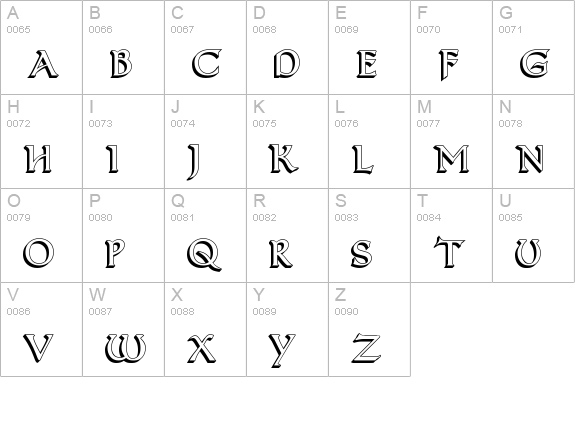
Dumbledor 1 3D font is a captivating and whimsical typeface that brings a touch of magic to any design project. With its intricate 3D detailing and elegant curves, this font exudes a sense of enchantment and mystery. Perfect for adding a touch of whimsy to invitations, posters, or branding materials, Dumbledor 1 3D font is sure to captivate your audience. The best part? Dumbledor 1 3D font is available for free download at FontsMarket.com. Simply visit the website and start using this magical font in your projects today. Don't miss out on this opportunity to add a touch of whimsical charm to your designs with Dumbledor 1 3D font - get it for free now!